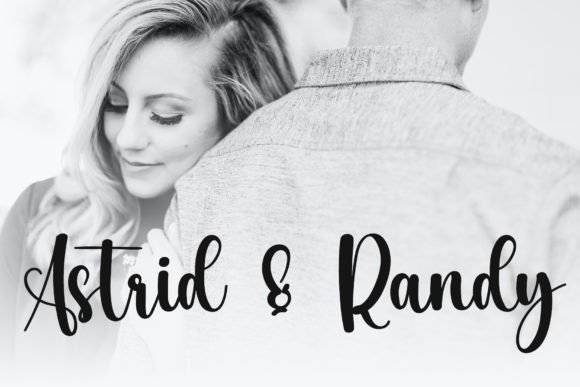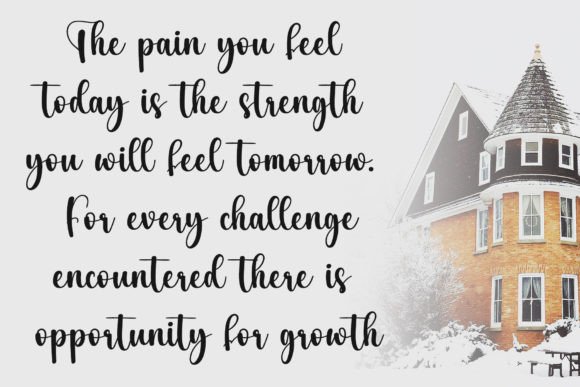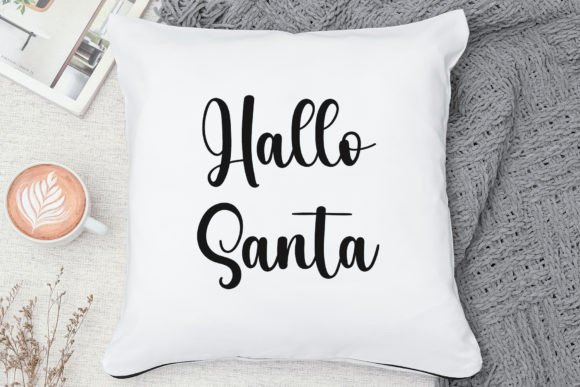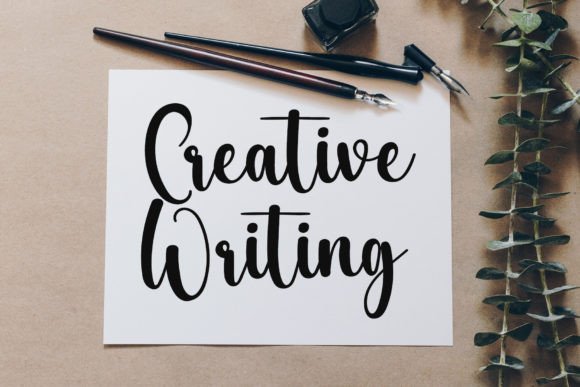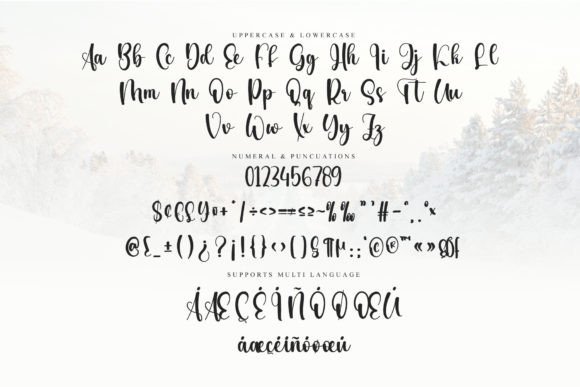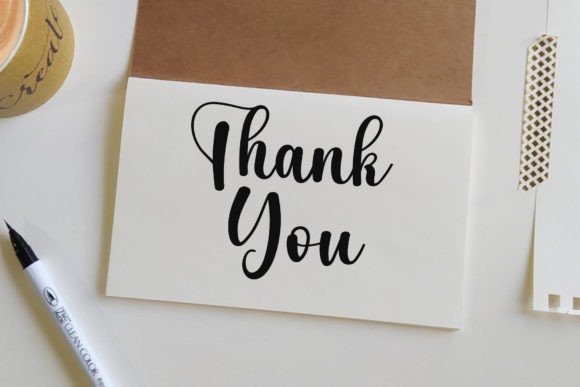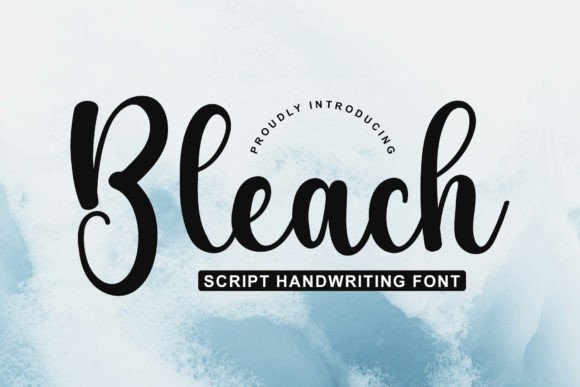
Bleach Font: A Beautiful Handwritten Masterpiece for Your Designs
Bleach is a stunning handwritten font that has captured the hearts of designers and crafters alike. Its unique, well-rounded letters make it a true masterpiece, perfect for creating spectacular designs that stand out from the crowd. In this article, we’ll dive into the world of Bleach Font, exploring its features, versatility, and uses, as well as provide tips and inspiration for incorporating it into your creative projects.
The Beauty of Bleach Font
Bleach Font is a beautiful handwritten font that boasts distinct and well-rounded letters. Its elegant, cursive style gives it a timeless and sophisticated feel, making it perfect for a wide range of design applications. Whether you’re creating a logo, branding materials, or social media graphics, Bleach Font is sure to add a touch of personality and whimsy to your work.
One of the standout features of Bleach Font is its incredible versatility. This font can be used in a variety of contexts, from formal and elegant designs to more playful and casual ones. Its adaptability makes it an excellent choice for designers who want to create a cohesive visual identity across different platforms and mediums.
Perfect for Handlettering and Calligraphy
Bleach Font is a dream come true for handlettering and calligraphy enthusiasts. Its fluid, connected letters make it ideal for creating beautiful, handwritten pieces that look like they were crafted with love and care. Whether you’re creating custom wedding invitations, event signage, or social media graphics, Bleach Font is sure to add a touch of elegance and sophistication to your work.
Great for Branding and Marketing Materials
Bleach Font is also an excellent choice for branding and marketing materials. Its unique and memorable style makes it perfect for creating logos, business cards, brochures, and other marketing collateral that stands out from the competition. With Bleach Font, you can add a touch of personality and whimsy to your brand’s visual identity, making it more relatable and engaging to your target audience.
Tips for Using Bleach Font
To get the most out of Bleach Font, here are a few tips to keep in mind:
• Pair it with contrasting fonts: Bleach Font works beautifully with contrasting fonts, such as bold sans-serifs or elegant serifs. Experiment with different combinations to find the perfect balance for your design.
• Play with color and texture: Bleach Font looks stunning in a variety of colors and textures. Don’t be afraid to experiment with different hues, gradients, and textures to add depth and interest to your design.
• Use it for headlines and titles: Bleach Font is perfect for headlines and titles, where its elegant and cursive style can really shine. Use it to add a touch of sophistication and personality to your design.
Still looking for inspiration? Here are a few ideas to get you started:
• Wedding invitations and stationery: Bleach Font is perfect for creating beautiful, custom wedding invitations and stationery that reflect the couple’s personality and style.
• Social media graphics: Use Bleach Font to create stunning social media graphics that stand out from the crowd and add a touch of personality to your brand’s online presence.
• Packaging design: Bleach Font is a great choice for packaging design, where its elegant and cursive style can add a touch of sophistication and luxury to your product.
Author 21Design
Bleach Font is a beautiful handwritten font that is sure to capture your heart. Its distinct and well-rounded letters make it a masterpiece, perfect for creating spectacular designs that stand out from the crowd. With its incredible versatility and adaptability, Bleach Font is an excellent choice for designers and crafters who want to add a touch of personality and whimsy to their work. So why wait? Fall in love with Bleach Font and start creating stunning designs today!